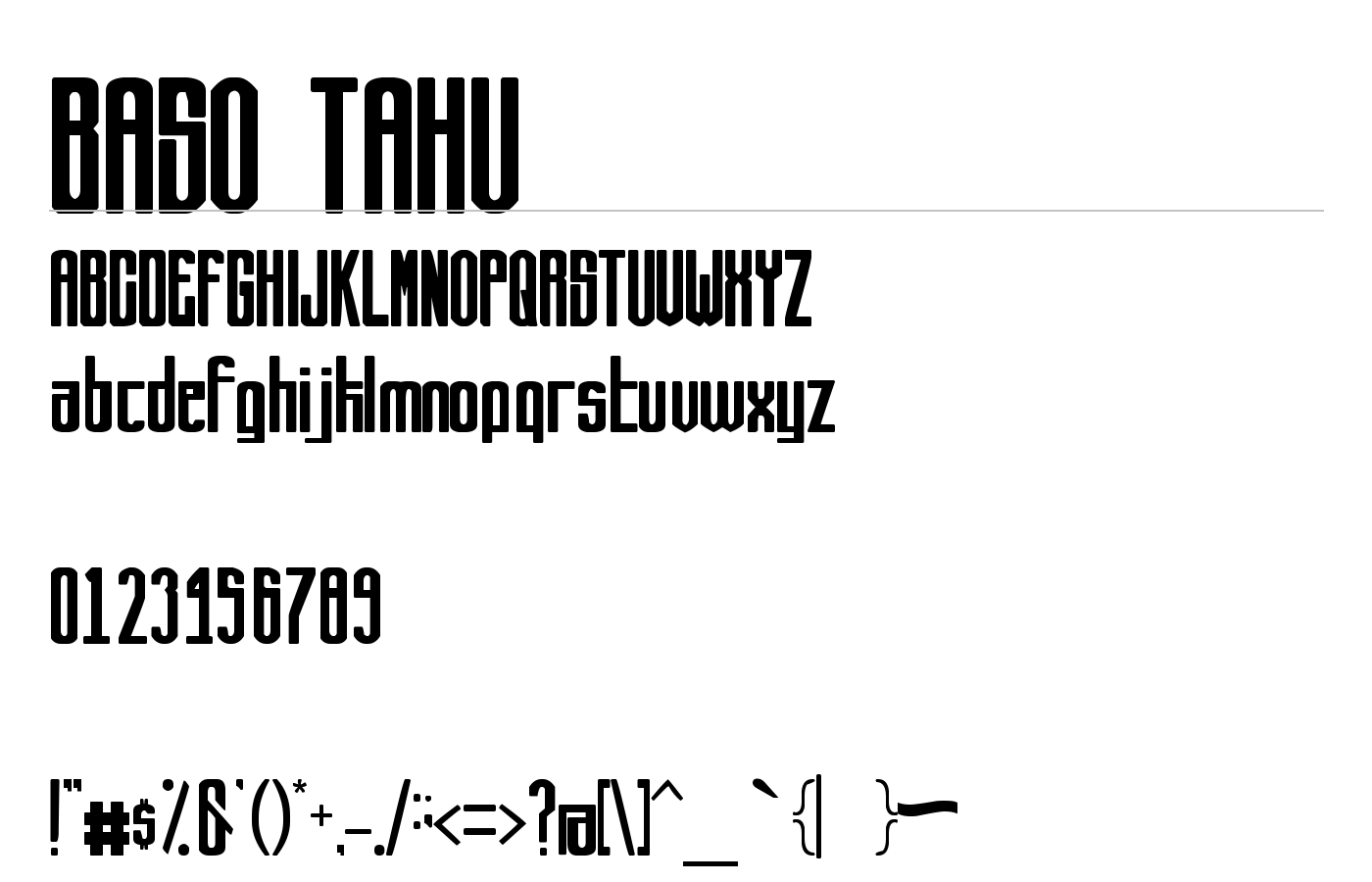
BASO TAHU is a bold, condensed sans serif font with a strong vertical emphasis and high stroke contrast that creates a striking, modern appearance. Its geometric shapes and tall letterforms give it a distinctive, edgy personality suited for impactful headlines, logos, and branding that demand attention. This font works best in designs seeking a contemporary, urban feel with a touch of bold sophistication.
BASO TAHU Font
About BASO TAHU Font